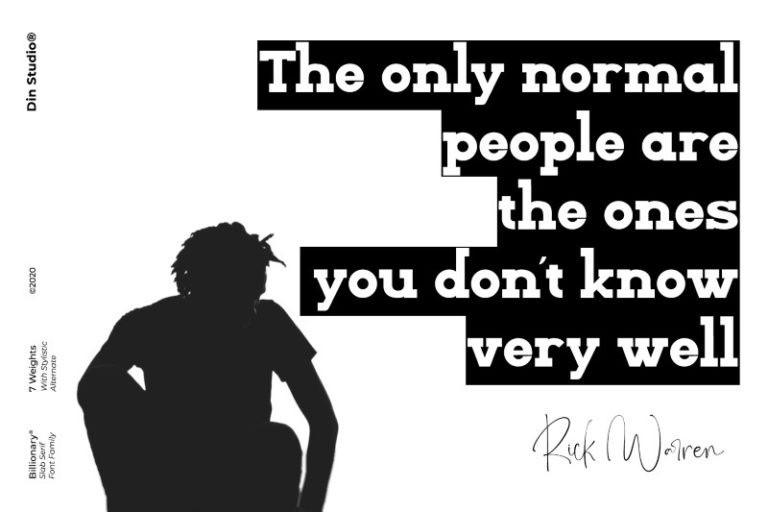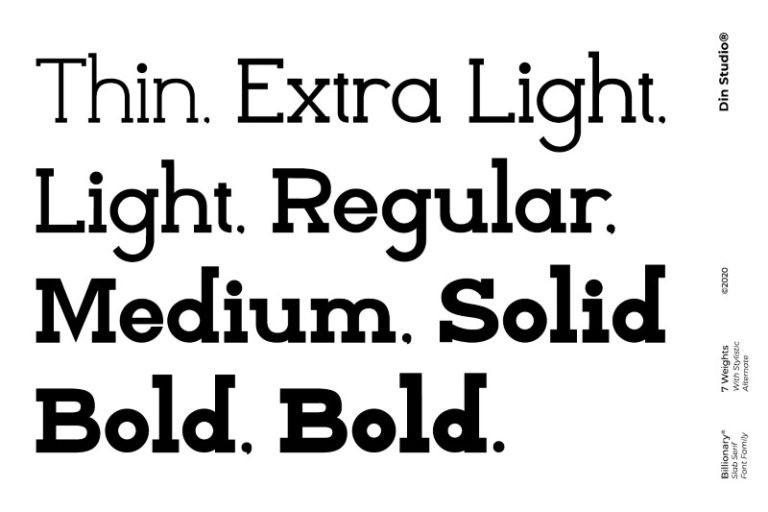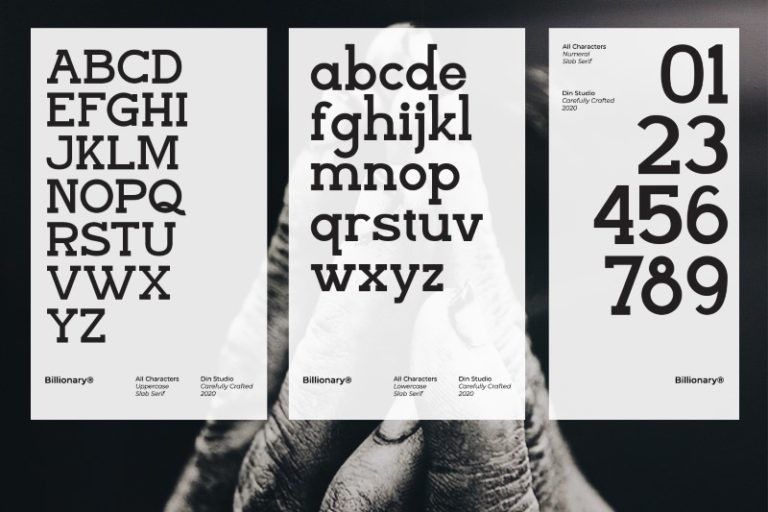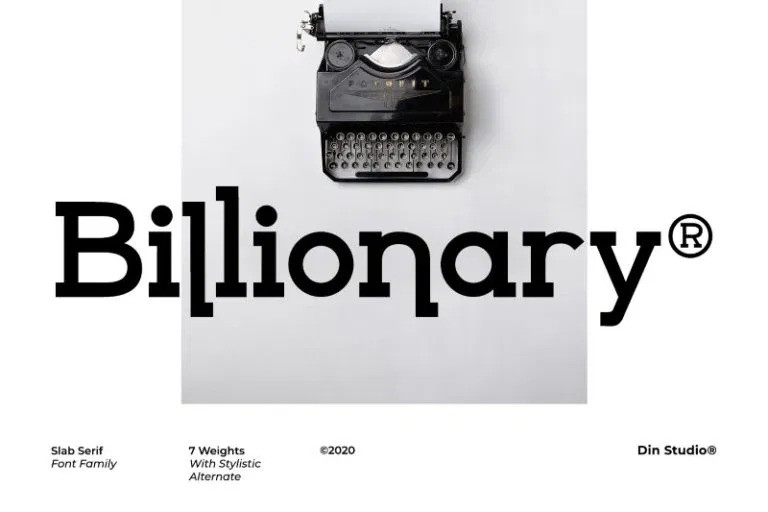
Billionary Slab Serif Font
It’s a modern slab serif font with unique variation. Made from font designer named Din Studio. With this family you will get many options to captivate, engage, and inspire your audience and clients. This fonts can be used for a host of different content needs and projects .Perfect for social media branding projects, fashion designs, printed quotes, packaging, or even as a stylish text overlay to any background image.